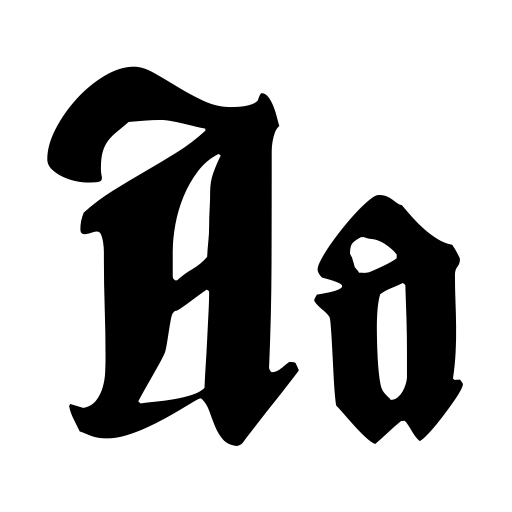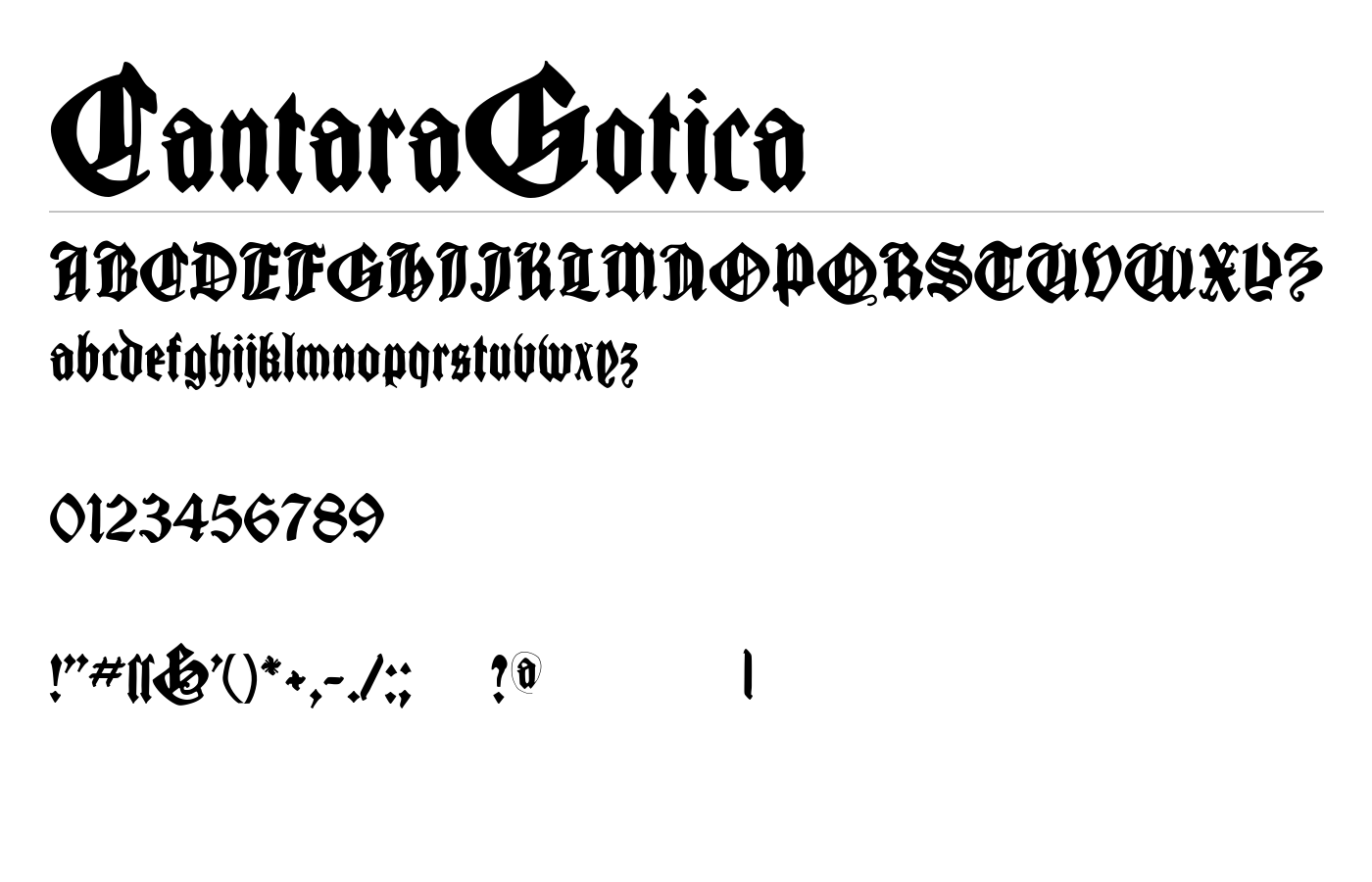
CantaraGotica is a bold and dramatic blackletter font with sharp, angular strokes and strong contrast between thick and thin lines. It evokes a medieval, gothic feel, making it perfect for designs that aim to convey tradition, mystery, or vintage charm. This font works well for logos, headlines, and packaging where a striking, historic atmosphere is desired.
CantaraGotica Font
About CantaraGotica Font